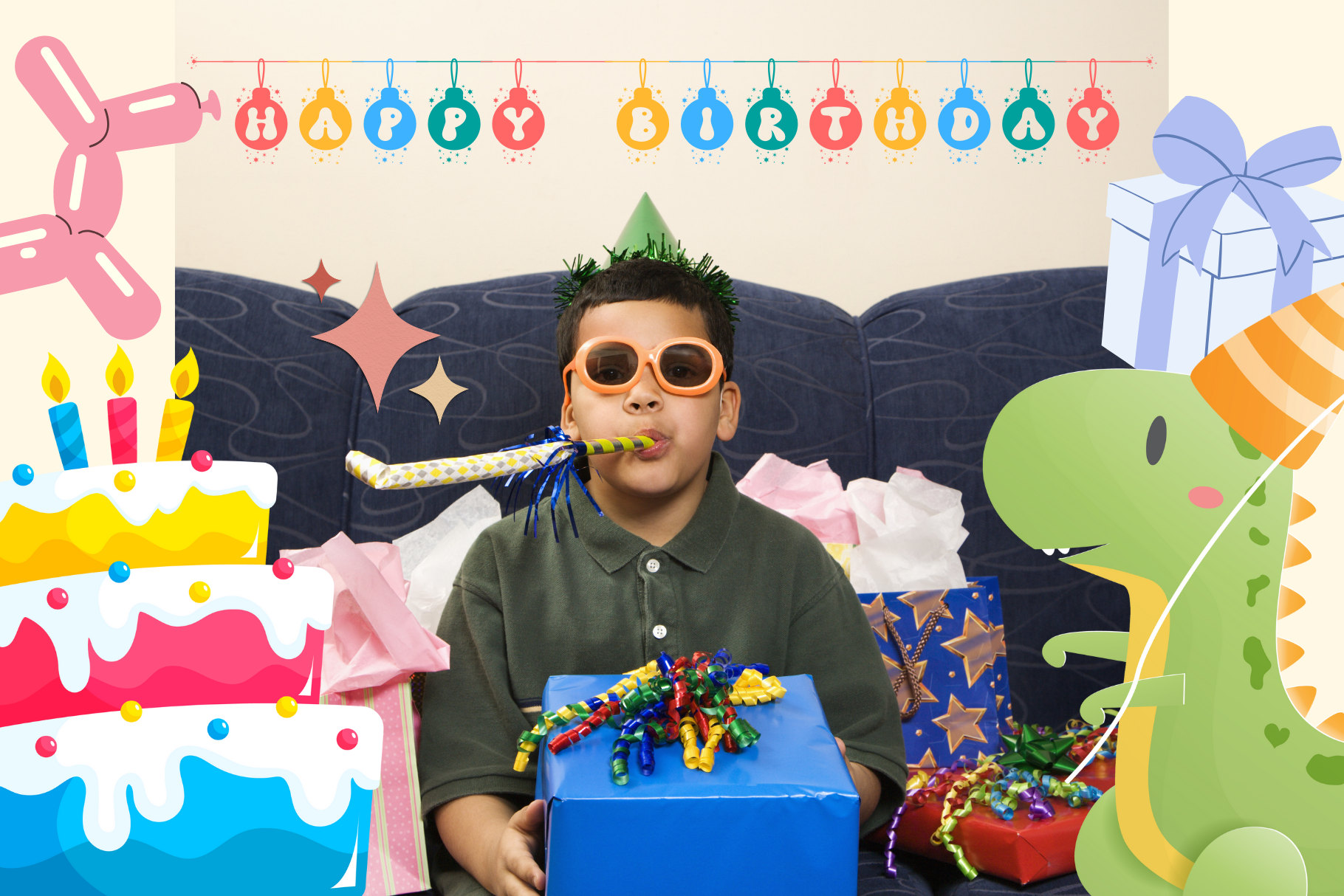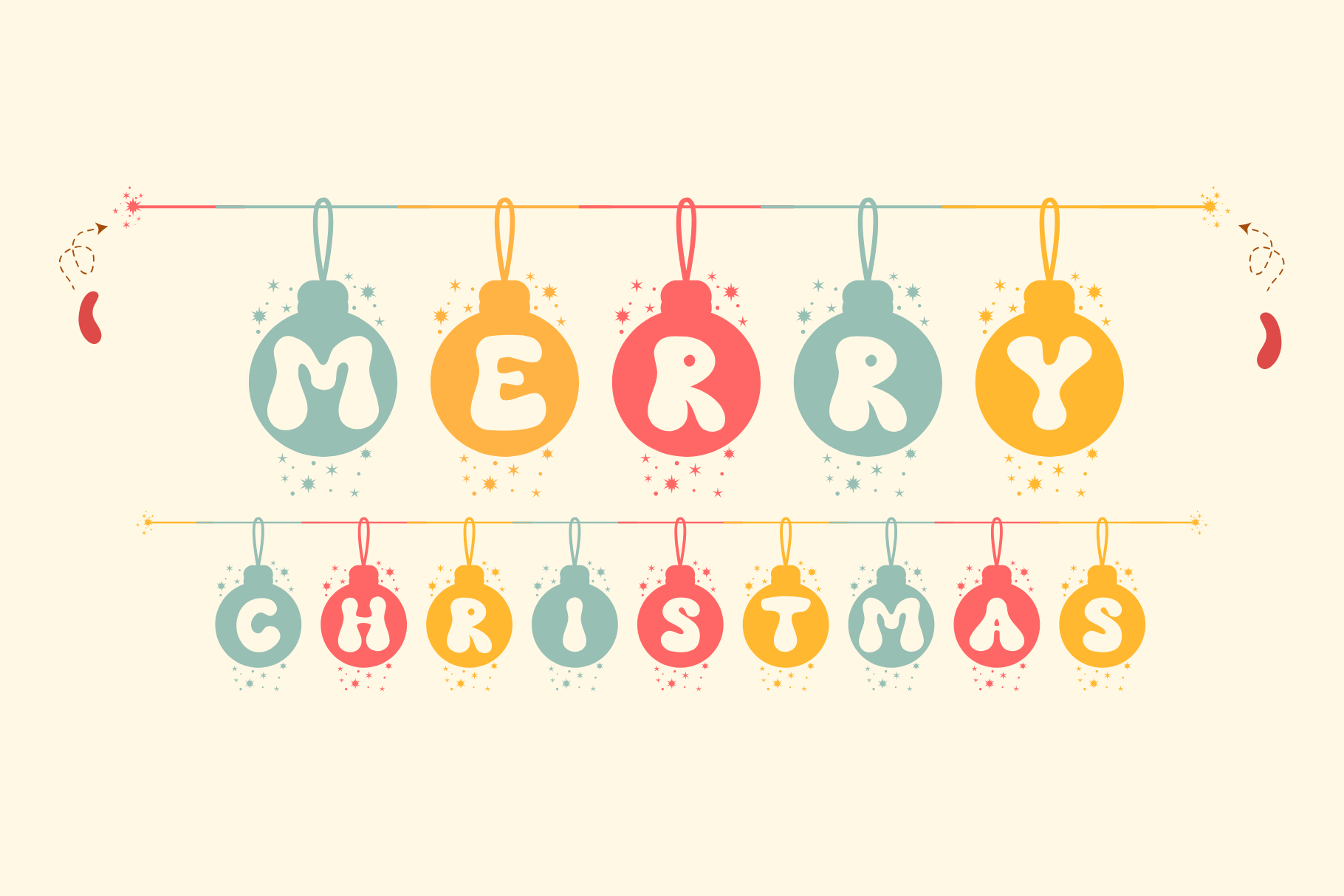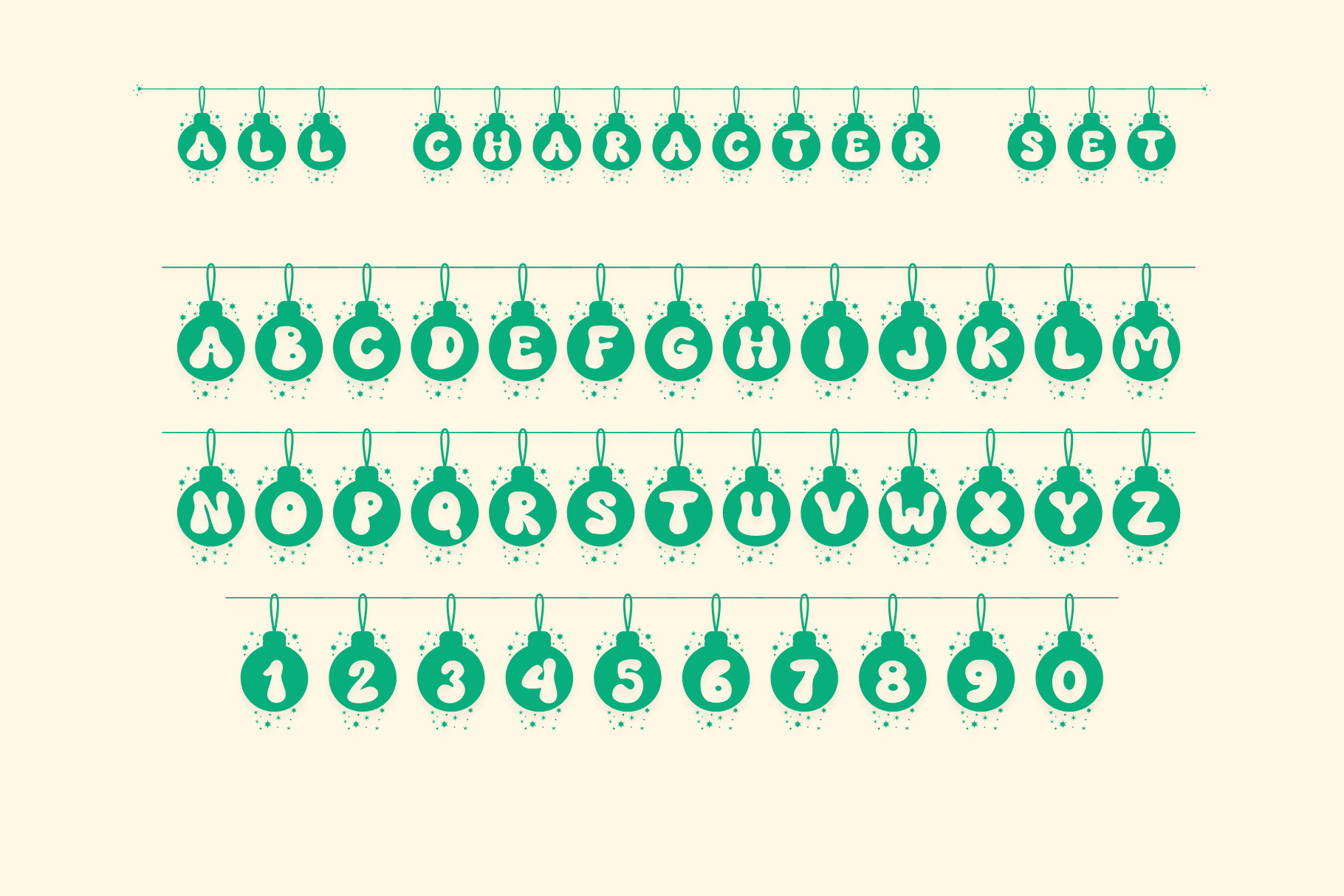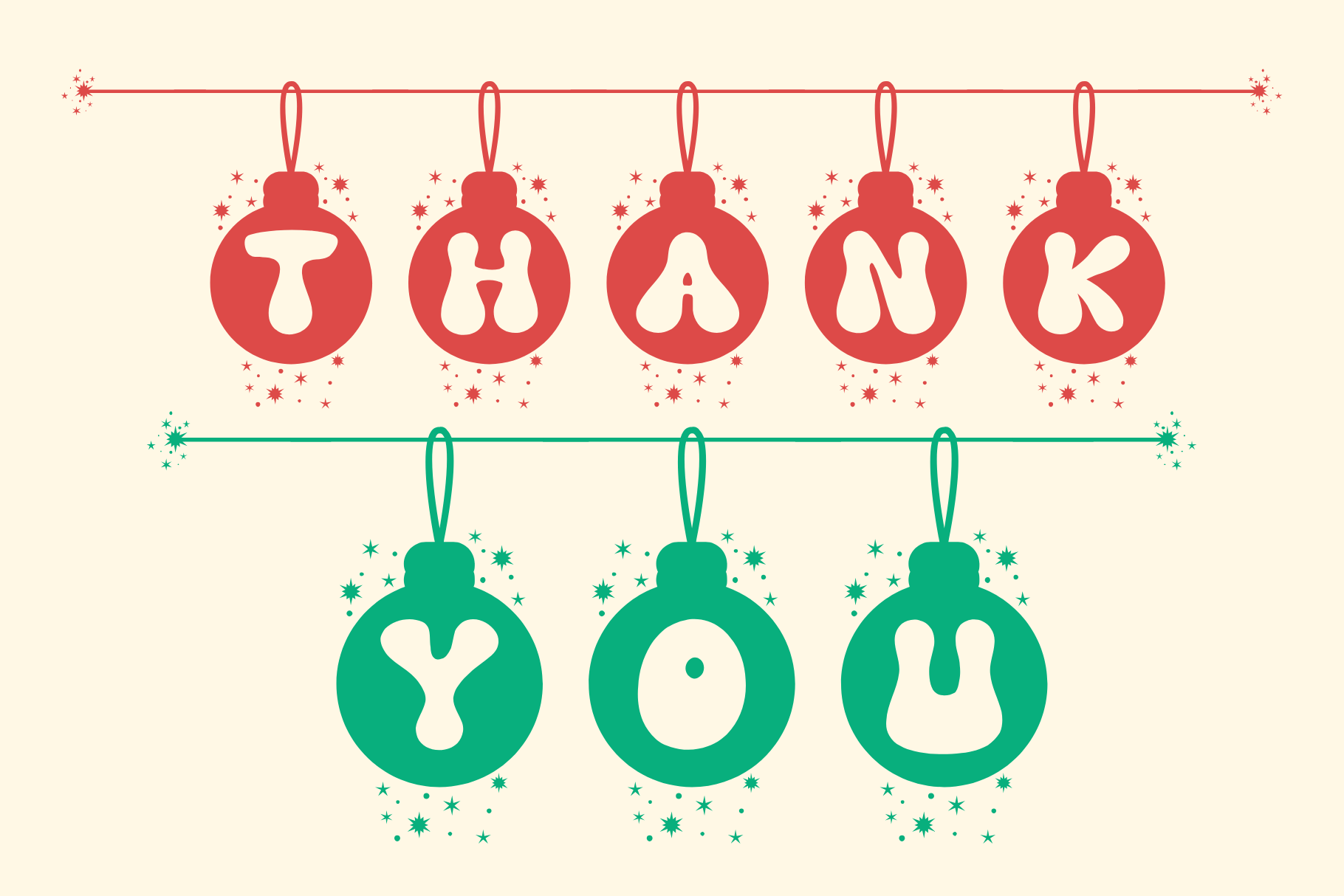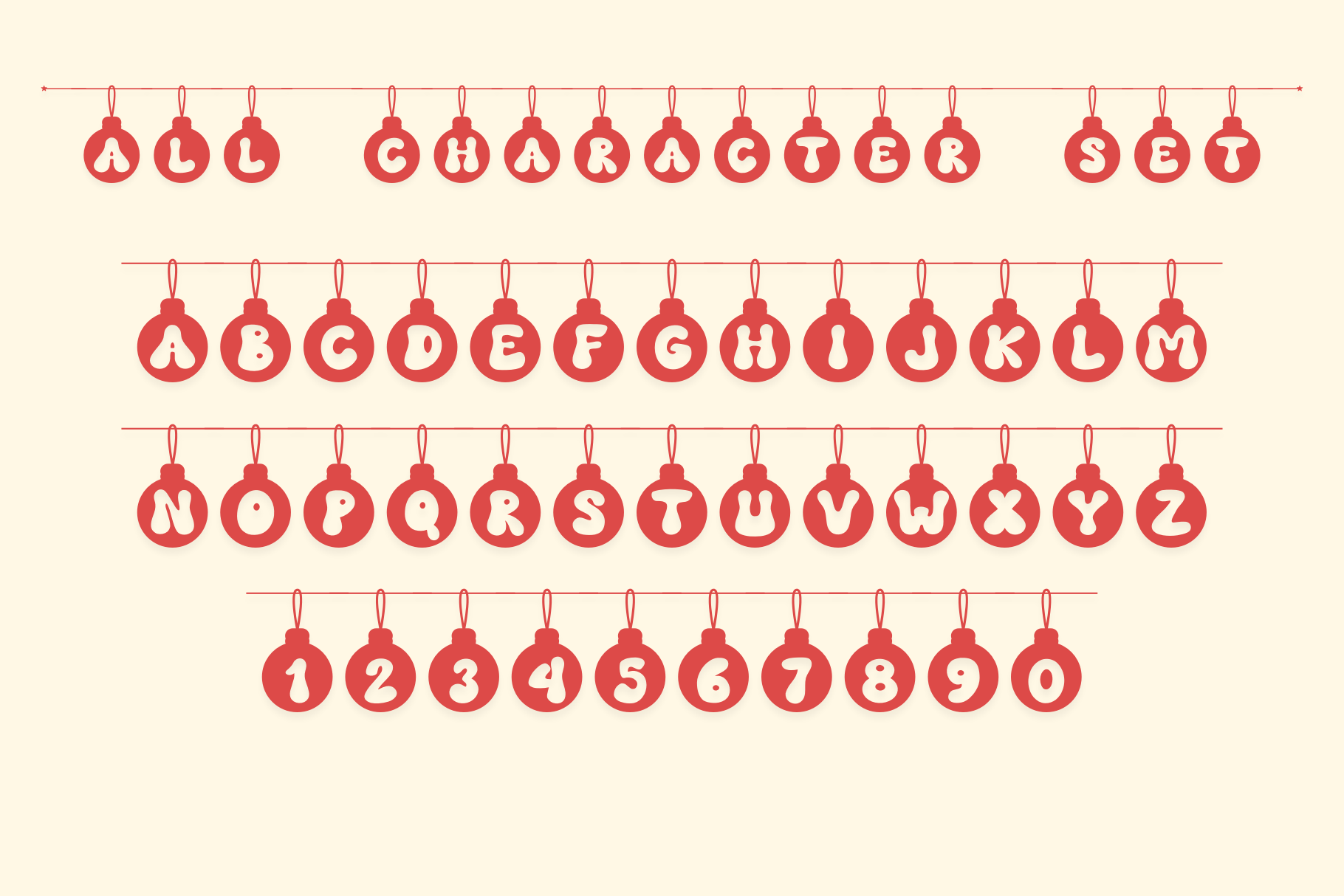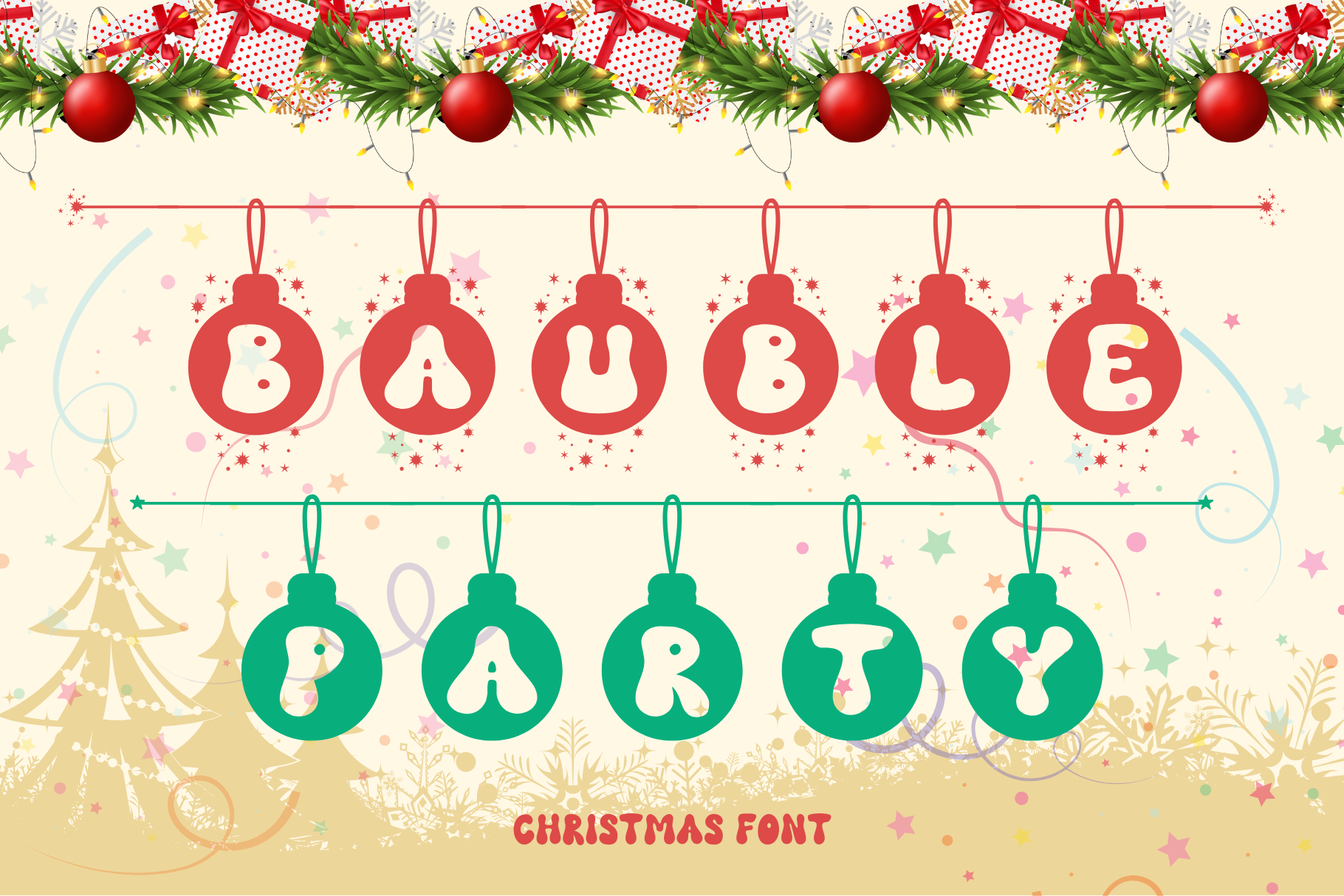
Bauble Party is a cute Christmas decorative font. It embodies playfulness and authenticity and is the perfect choice for all your favorite projects, or even for blog posts, logos, branding, ads, invitations, greeting cards, planners, photo albums, decorations, and much more. Add it to any of your designs, and enjoy the results! | Bauble Party is a Christmas font | Brown Cupple